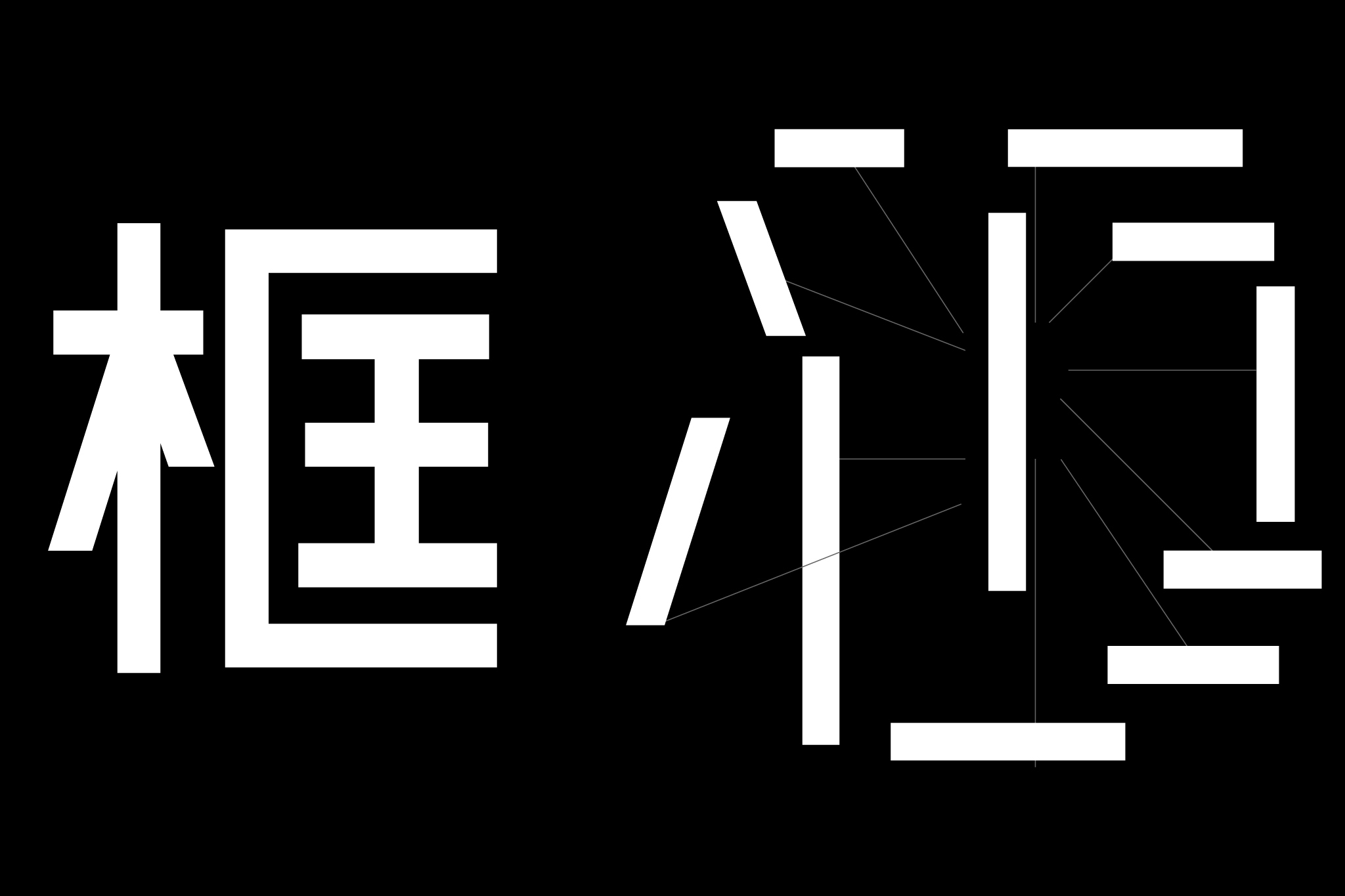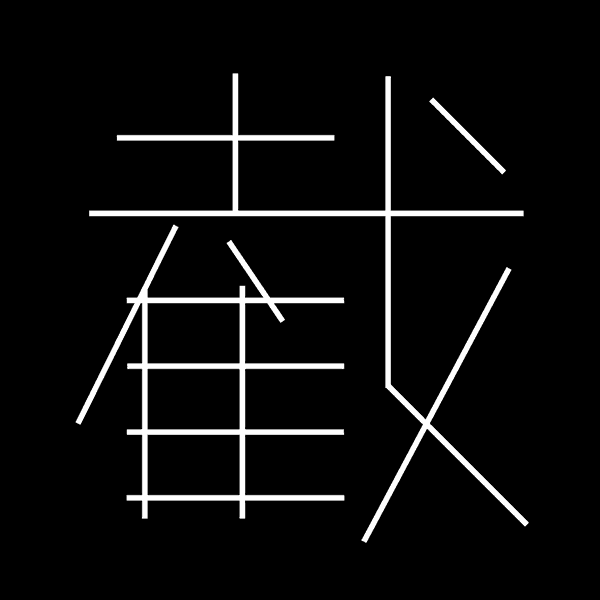
Teaching materials for
”motion type project workshop”
in NCTU.
交通大學應用藝術所
"漢字動態專案" 工作坊
補充教材
”motion type project workshop”
in NCTU.
交通大學應用藝術所
"漢字動態專案" 工作坊
補充教材
Typeface Category:
Monolinear Sans-Serif Stroke
H E I
Monolinear Sans-Serif Stroke
HEI
(GOTHIC)
F R A M E
L I G H T
C U T